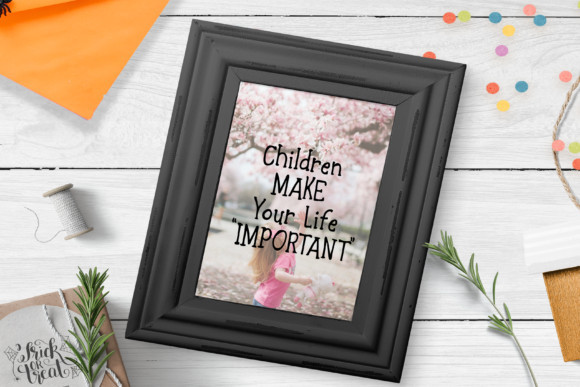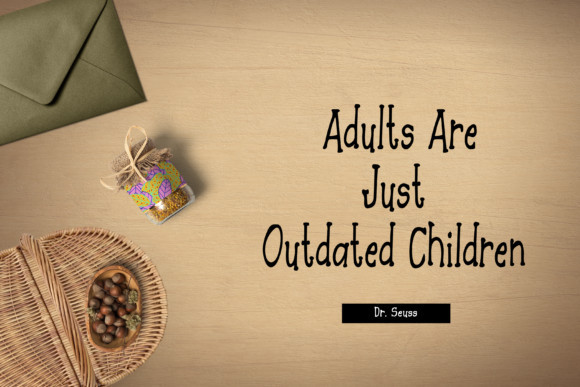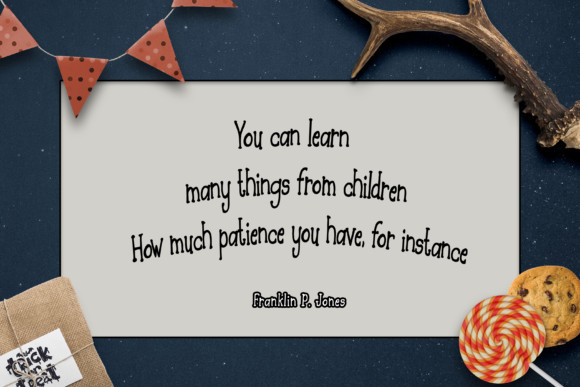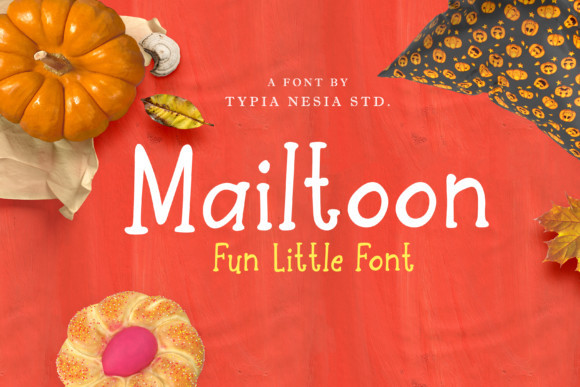
Mailtoon Font
Mailtoon is an incredibly whimsical and youthful font with a cartoonish charm! Get inspired by its cute feel, and turn any design project into a stand out.